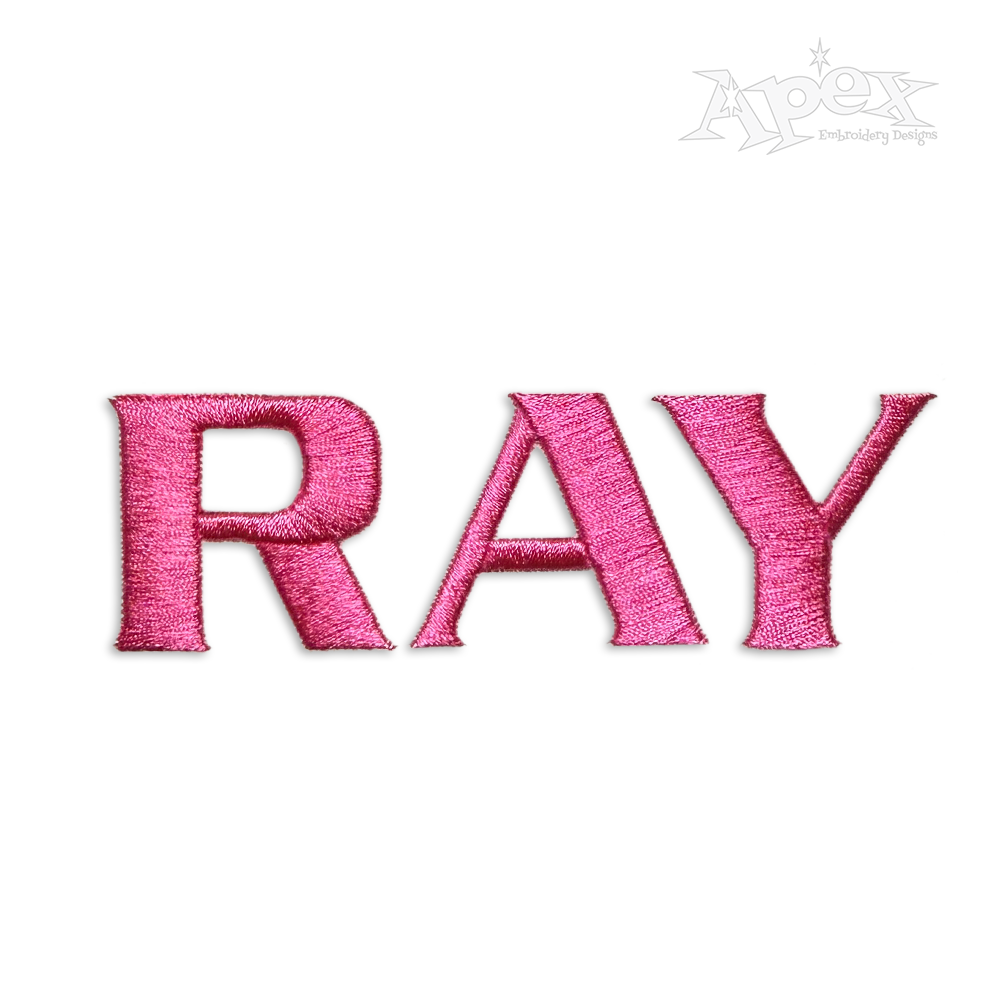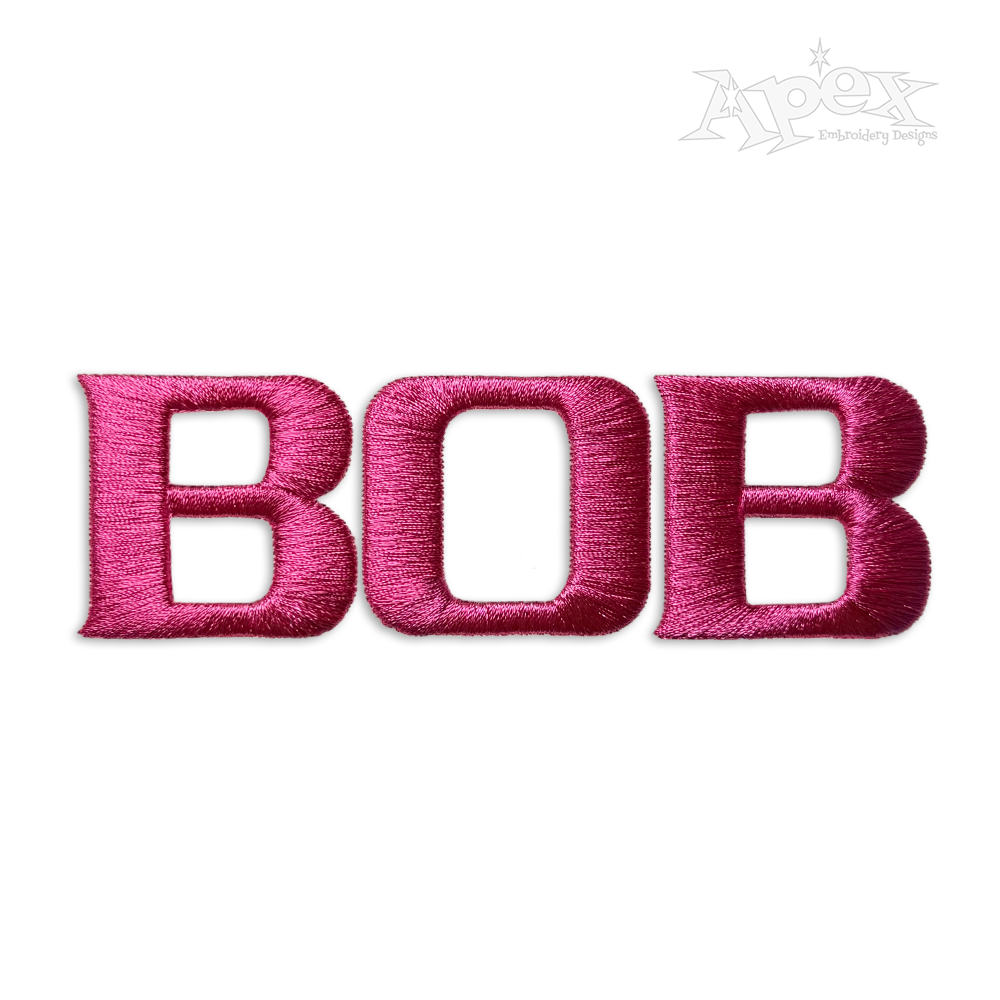
Wide Embroidery Font
There is an effortless, grounded sophistication in letterforms that dare to take up space. When drafting our Wide Embroidery Font, our vision was to capture an expansive, architectural aesthetic where generous tracking and broad proportions command presence without overwhelming delicate textiles. Each glyph unfurls with deliberate horizontal breathing room, translating mid-century typographic confidence into rich, tactile threadwork. Ideal for bespoke resort wear, curated bridal suites, and tailored personalized gifting, this satin stitch alphabet brings a bold yet timeless designer posture to every sew-out.
Designed for pristine clarity and structural balance, this collection focuses on a commanding single-scale monogramming size:
- Uppercase Alphabet: 1.5 inches (approximately 38mm) in height, drafted with extended horizontal widths to create a dramatic, widescreen visual footprint.
Project Ideas for Wide Embroidery Font
The extended proportions of this font offer endless creative potential across elevated home decor and heirloom apparel:
- Bespoke Resort Wear & Canvas Totes: Frame a classic summer tote or heavy linen caftan with bold, widely spaced initials that channel luxury seaside retreat style.
- Luxury Table Linens: Stitch crisp monograms onto heavy-weave dinner napkins and runner borders for tailored, modern tablescapes.
- Heirloom Bedding & Euro Shams: The wide horizontal profile anchors pillows beautifully, creating substantial center-focused monograms on percale and crisp cotton sateen.
- Bridal Robes & Loungewear: Embroider the center-back yoke or chest pocket of satin and silk dressing gowns for sleek, personalized bridal party gifts.
- Tailored Bath Linens: Add high-contrast initialing to plush Turkish cotton bath sheets and guest towels for an authentic boutique-hotel finish.
Because the Wide Embroidery Font emphasizes horizontal balance, it commands attention in positions that traditional, narrow fonts cannot fulfill:
- Center Chest & Bolster Positioning: The elongated stance creates visual stability across wide spaces, preventing the need for busy multi-letter arrangements when a single striking initial is preferred.
- Diagonal Mitered Corners: Orient an initial diagonally at a 45-degree angle in the corner of cocktail napkins or handkerchiefs for an unexpected, modern architectural flourish.
- Border & Hem Alignments: The broad, flat baselines anchor cleanly above folded hems, waffle borders, and hemstitch lines on fine guest linens.
- Cuff & Pocket Headers: Positioned subtly along the upper rim of a pocket or resting boldly above a structured cuff, a 1.5-inch wide initial serves as an unmistakable bespoke signature.
Wide Embroidery Font Craft & Letterform Details
Digitizing ultra-wide letterforms requires an exacting mastery of tension, density, and stitch direction. Unlike standard vertical fonts, wide strokes span broader areas of fabric that can easily pull or ripple if left unchecked. To ensure each letter lays completely flat with a liquid-smooth surface sheen, we engineered custom underlay frameworks that act as an invisible foundation beneath the satin columns.
Every curve, apex, and crossbar is calculated with carefully planned angle divisions. The stitch inclination gracefully wraps around broad curves, capturing ambient light across the thread with high-luster brilliance. Junctions are sculpted to eliminate heavy thread buildups, ensuring that the intersection of every stroke remains crisp, flat, and tactile underhand. The result is an alphabet of pure artisan quality—celebrating spacious modern letterforms with the time-honored durability of master digitizing.